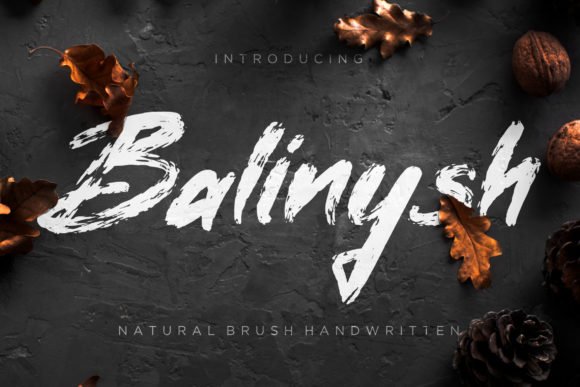
When Brush Meets Design: The Story of Balinysh Font
As designers, we’ve all been there – stuck in front of a blank canvas, trying to bring our creative vision to life. The moment when inspiration strikes, and the perfect font magically appears, is one of the most exhilarating feelings in the design world. It’s a moment when everything falls into place, and our ideas start to take shape. This is exactly what happened when the creators of Balinysh Font set out to craft a unique, handwritten font that would elevate any design project.
Balinysh Font is a beautifully crafted, bold yet sophisticated typeface, created with the help of a trusty brush pen. Its chunky and extended characters give it a particularly adept feel, making it perfect for logos, branding, packaging design, and much more. For designers, this font is a valuable addition to their toolkit, offering a fresh and creative way to express their ideas and bring their vision to life.
Balinysh Font Key Features
- Unique Characteristics: Elegant, cursive script with a touch of vintage flair, suitable for creative and artistic applications
Review of Balinysh Font
Overall, I was excited to dive into the world of Balinysh Font, but my experience was a mixed bag.
- The unique, cursive design of Balinysh Font is undeniably eye-catching. It adds a touch of elegance and sophistication to any project.
- The font is highly legible, even at smaller sizes, making it a great choice for body text or headings.
- The Balinysh Font includes a wide range of languages, making it a versatile choice for global projects.
- The font’s high contrast between thick and thin strokes can make it difficult to read on certain backgrounds or with certain color combinations.
- The Balinysh Font lacks a bold weight, which can limit its use in certain design scenarios.
- The font’s cursive design can make it challenging to use in text-heavy content or for complex typography.
While Balinysh Font has its strengths, its limitations hold it back from being a top choice for every project. With some careful consideration and planning, it can be a great addition to your design toolkit. However, it may not be the best fit for every design scenario.
To get the most out of the Balinysh Font, consider the following tips:
- Use the font in bold or italic styles to add emphasis.
- Pair the font with other elegant fonts for a unique look.
- Use the font in headings and subheadings to create visual hierarchy.
The Balinysh Font is ideal for:
- Branding and logos.
- Editorial and literary publications.
Alternatives to Balinysh Font
Playfair Display is a luxurious, high-end serif font ideal for use in invitations, magazine covers, and other high-end materials. It features elegant connections between letters and ornate flourishes. When to use: Luxury branding, invitations, magazine covers. It compares to Balinysh Font as it has a similar high-end feel but with a more elegant and refined appearance.
Great Vibes is a modern, elegant script font suitable for use in branding, packaging, and advertising. It features a flowing, cursive design with a touch of whimsy. When to use: Branding, packaging, advertising. It compares to Balinysh Font as it has a similar elegant feel but with a more modern and flowing design.
Carolyna Pro is a modern, elegant sans-serif font ideal for use in branding, advertising, and editorial materials. It features clean lines, geometric shapes, and a touch of sophistication. When to use: Branding, advertising, editorial materials. It compares to Balinysh Font as it has a similar modern feel but with a more geometric and clean design.